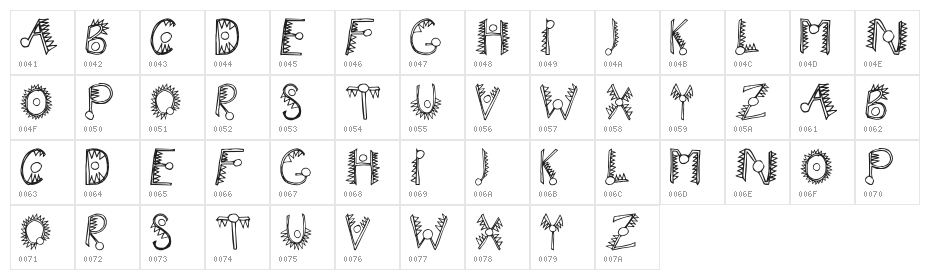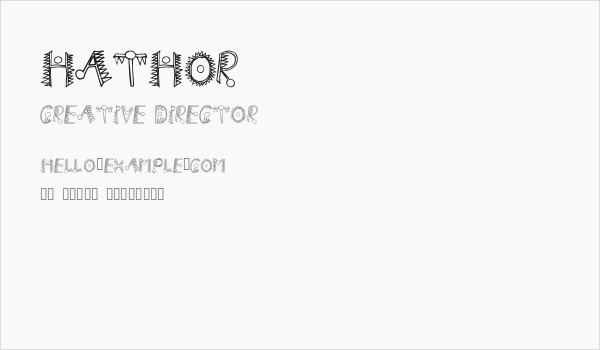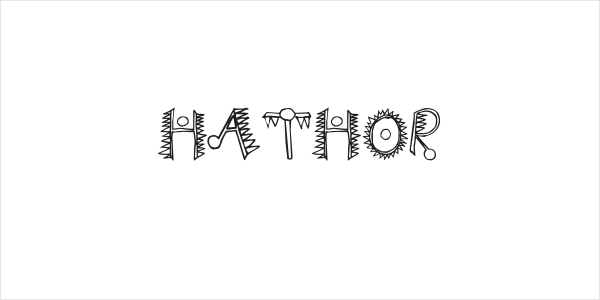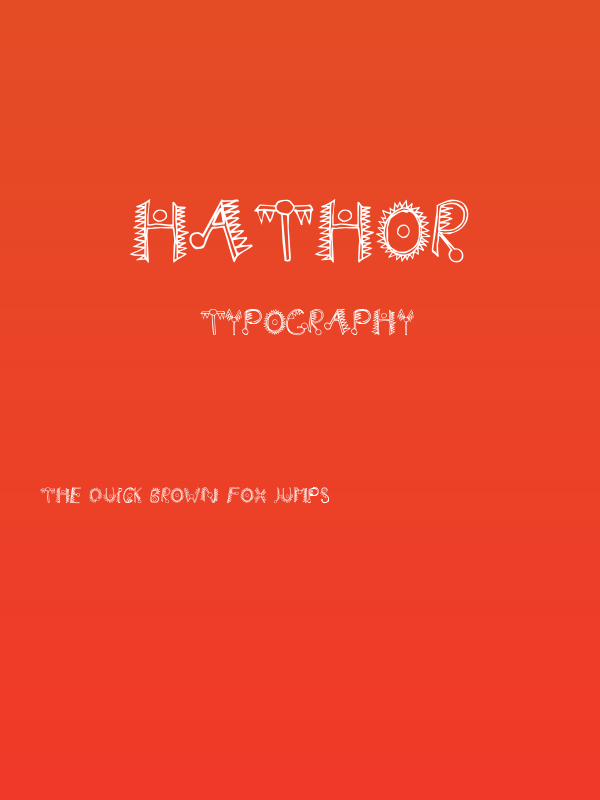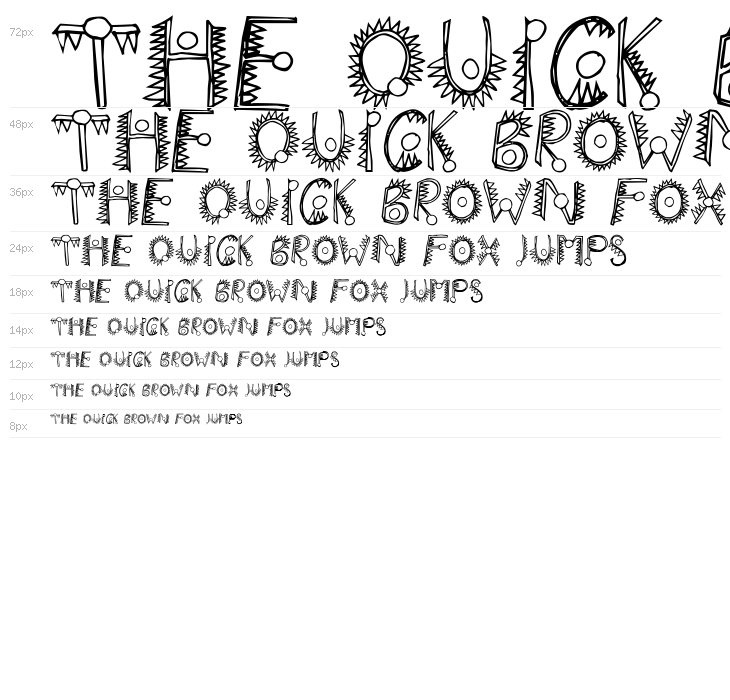
Hathor Font
Hathor Description
This font features a playful and dynamic design with a unique combination of geometric shapes and spiky elements. Each character is adorned with circular accents and jagged edges, creating a sense of movement and energy. The uppercase letters are bold and eye-catching, while the lowercase letters maintain the same whimsical style. The numbers are represented by bold rectangular shapes, adding a modern and abstract touch to the overall design. This font's distinctive style makes it suitable for creative and unconventional projects.
Proposed ProjectsIdeal for children's book covers, playful branding, party invitations, and creative posters.